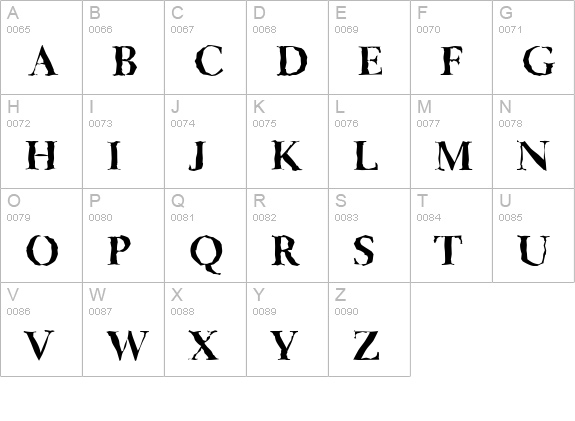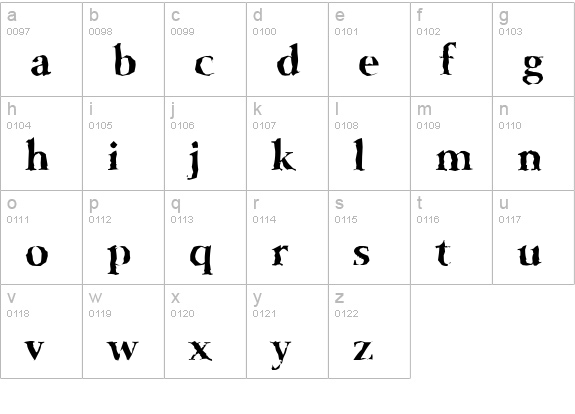
BelfastRandom-Bold Font Details
BelfastRandom-Bold is a strong, high-contrast variant in the BelfastRandom typeface family \xE2\x80\x94 well suited to headlines, attention-grabbing titles, and strong calls-to-action.
BelfastRandom-Bold font is a striking and bold typeface that demands attention with its unique and eye-catching design. Perfect for making a statement in headlines, logos, and branding projects, this font exudes confidence and modernity. Its sharp lines and distinct characters give any text a bold and powerful presence. BelfastRandom-Bold is a versatile font that can be used for a variety of design projects, adding a touch of sophistication and style. Best of all, BelfastRandom-Bold is available for free download at FontsMarket.com. This means you can easily access and enjoy this stunning font without any cost, making it a valuable addition to your font collection. Don't miss out on the opportunity to elevate your designs with the bold and impactful BelfastRandom-Bold font, now readily available for free download.